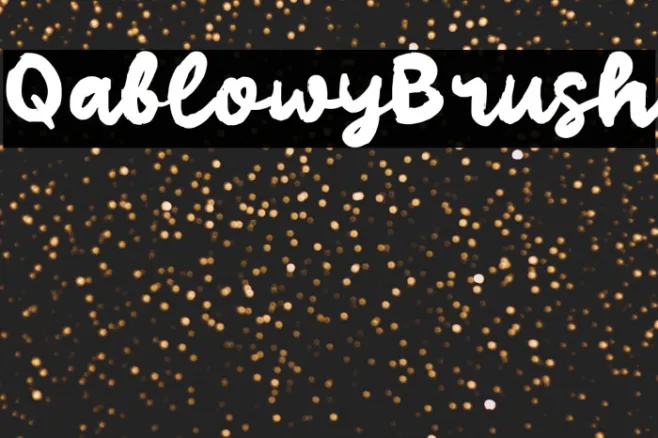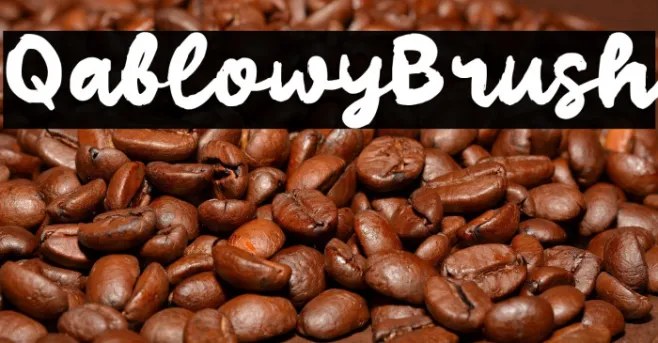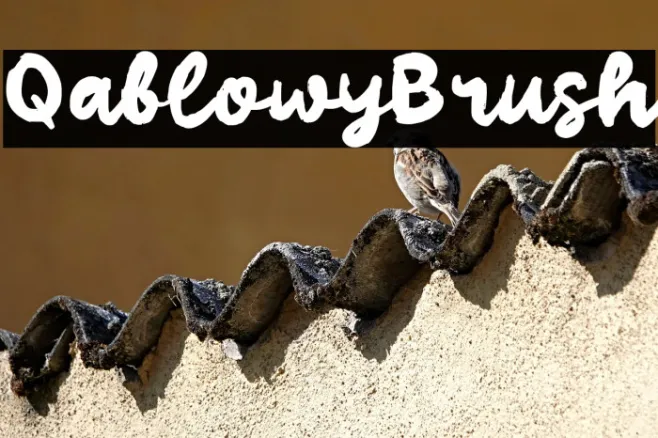
Qablowy Brush Font
Qablowy Brush Description
A bold, playful, handwritten style font with a casual and informal appearance, featuring irregular strokes and a slightly rough texture.
| Overall Style | Casual, Playful, Handwritten |
| Use Case | Headlines, Posters, Invitations, Social media graphics |